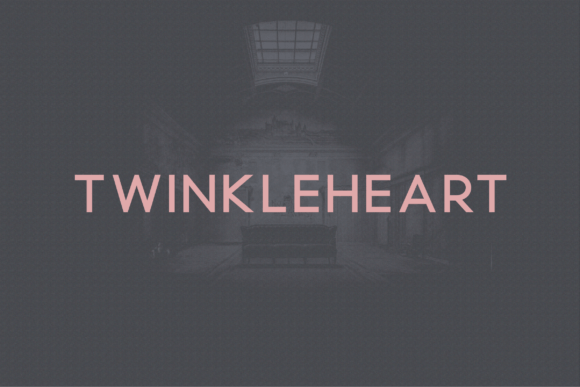
Twinkleheart Font: Elevate Your Design with a Modern, Classy Sans Serif Typeface
In the world of typography, a font can make all the difference in the aesthetic and effectiveness of a design. For those seeking a modern, classy sans serif typeface that exudes elegance and versatility, look no further than Twinkleheart Font. This exceptional font is designed to cater to a wide range of design needs, from logos and weddings to invitations, quotes, advertisements, and more.
What is Twinkleheart Font?
Twinkleheart Font is a thoughtfully crafted sans serif typeface that features upper characters, numbers 0-9, and a comprehensive range of punctuation and symbols. This extensive character set makes it an extremely versatile font, capable of meeting the demands of various design projects. Whether you’re working on a logo, a wedding invitation, or a magazine layout, Twinkleheart Font is up to the task.
Key Features of Twinkleheart Font
- Modern and Classy Design: Twinkleheart Font boasts a sleek, contemporary design that adds a touch of sophistication to any project.
- Sans Serif Typeface: The clean lines and minimalist aesthetic of the sans serif design make it perfect for a wide range of applications.
- Extensive Character Set: Upper characters, numbers 0-9, and a variety of punctuation and symbols are included, ensuring that you have everything you need to create stunning designs.
- Versatility: From logos and branding to weddings, invitations, and advertising, Twinkleheart Font is the perfect choice for any project that requires a modern, elegant look.
The Benefits of Using Twinkleheart Font
When it comes to selecting a font for your design project, there are numerous benefits to choosing Twinkleheart Font. Here are just a few:
Why Choose Twinkleheart Font?
- Elegance and Sophistication: Twinkleheart Font adds a touch of class and elegance to any design, making it perfect for projects where a professional look is essential.
- Flexibility: The versatility of Twinkleheart Font means that it can be used across a wide range of design applications, from digital to print.
- Easy to Read: The clear, sans serif design of Twinkleheart Font ensures that your message is conveyed clearly and effectively, making it ideal for body text and headings.
- Unique and Memorable: With its modern and classy aesthetic, Twinkleheart Font helps your design stand out from the crowd, making it more memorable and impactful.
Use Cases for Twinkleheart Font
Twinkleheart Font’s versatility makes it suitable for a wide range of design projects. Here are some examples of how you can use this exceptional font:
Inspiration for Your Designs
- Logos and Branding: Create a lasting impression with a modern, classy logo that perfectly represents your brand’s identity.
- Weddings and Invitations: Add a touch of elegance to your wedding invitations, save-the-dates, and other stationery with Twinkleheart Font.
- Advertisements and Marketing: Make your advertisements stand out with a font that exudes professionalism and style.
- Magazines and Print: Use Twinkleheart Font for magazine layouts, brochures, and other print materials to add a modern touch.
- Quotes and Typography: Create stunning typographic quotes and posters with Twinkleheart Font’s clean and elegant design.
In conclusion, Twinkleheart Font is an exceptional sans serif typeface that offers a perfect blend of modernity, elegance, and versatility. Whether you’re a designer, a business owner, or simply someone looking for a beautiful font for personal projects, Twinkleheart Font is an excellent choice. Its extensive character set, ease of use, and stunning design make it suitable for a wide range of applications. Elevate your designs with Twinkleheart Font and experience the difference it can make.